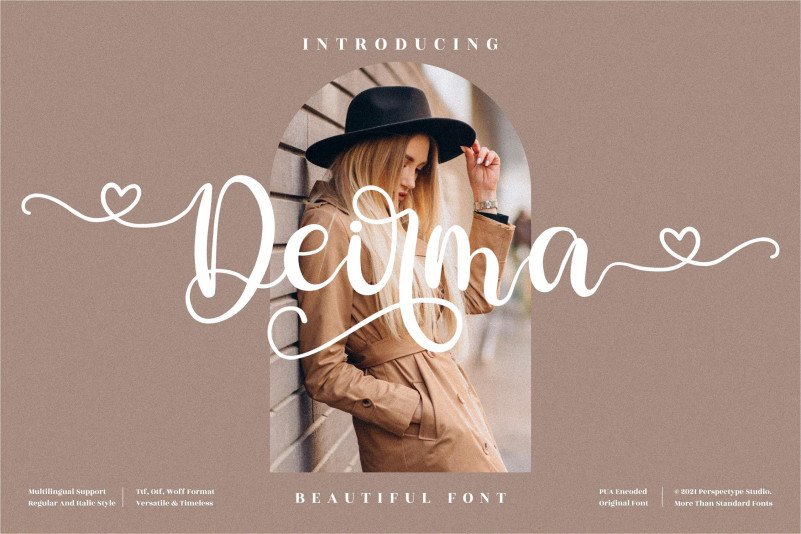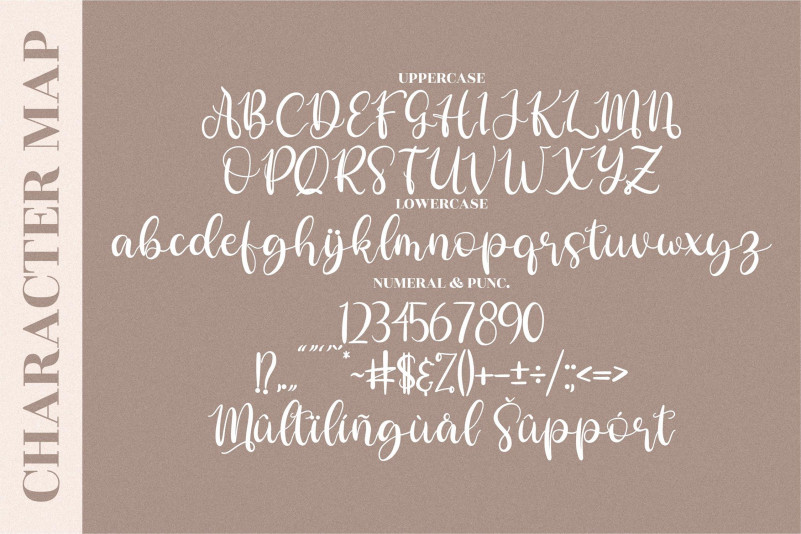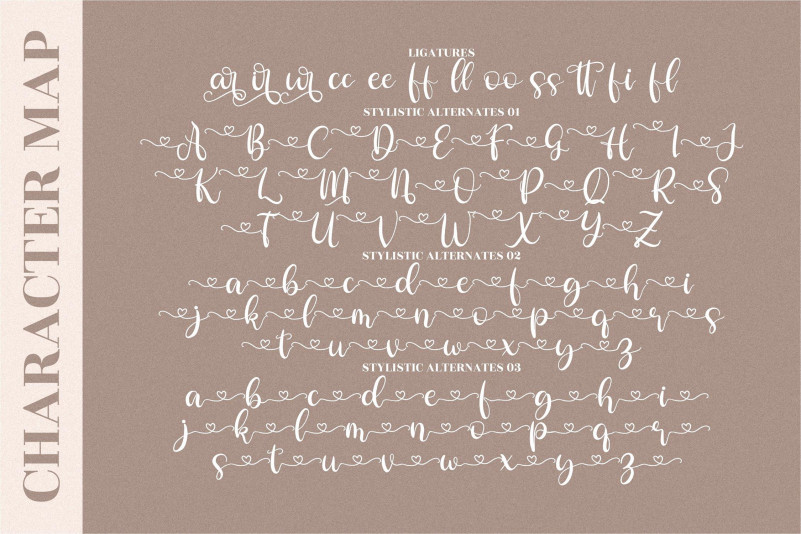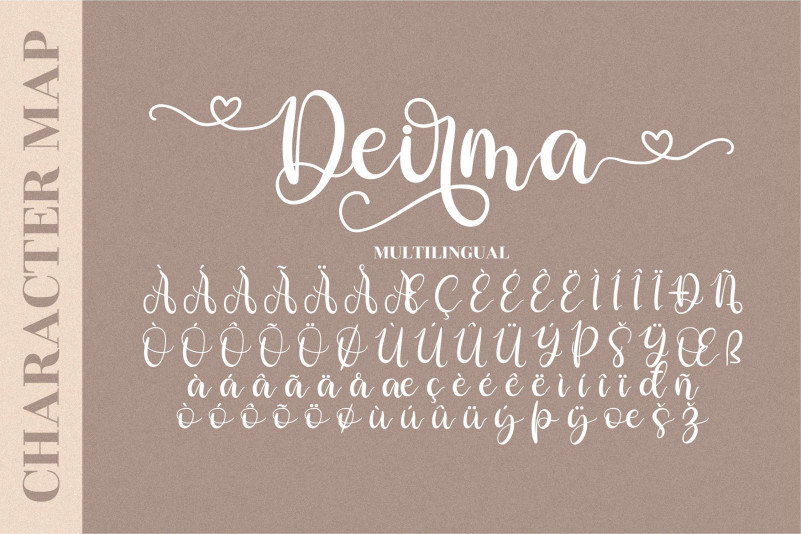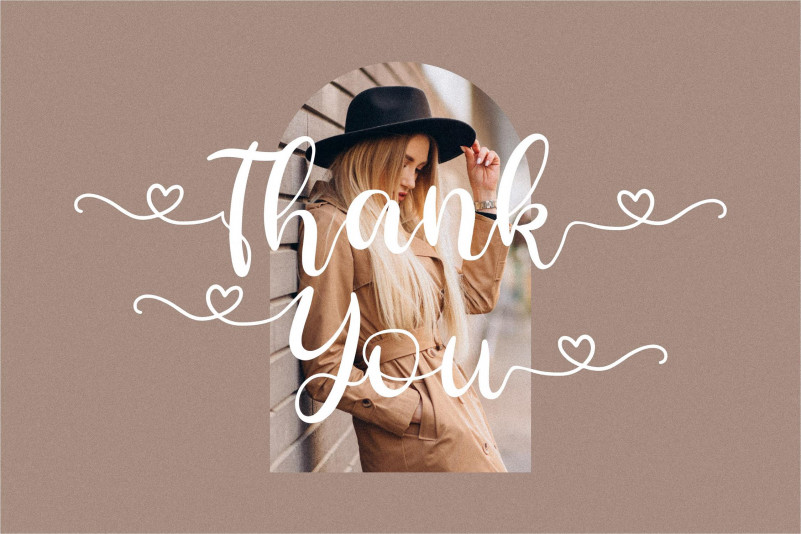
Deirma Font
Deirma Calligraphy Font
This is a romantic and sweet calligraphy typeface with characters that dance along the baseline. It will add a luxury spark to any design project that you wish to create! This font is PUA encoded which means you can access all of the amazing glyphs and ligatures with ease!